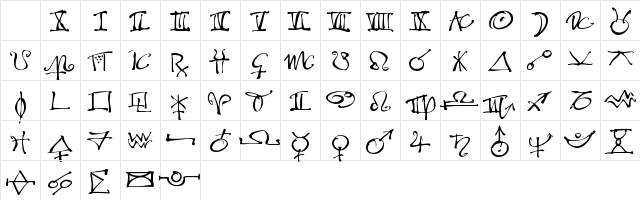
Astrolo LT Regular
Design Context for Astrolo LT
Astrolo LT is a composed and adaptable typeface that performs quietly and consistently across a wide range of design contexts. Its slender proportions lend an understated elegance to any composition.